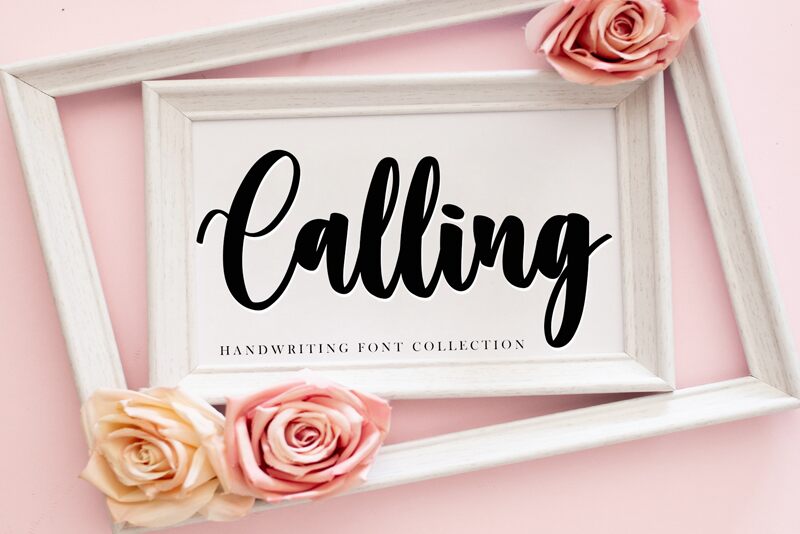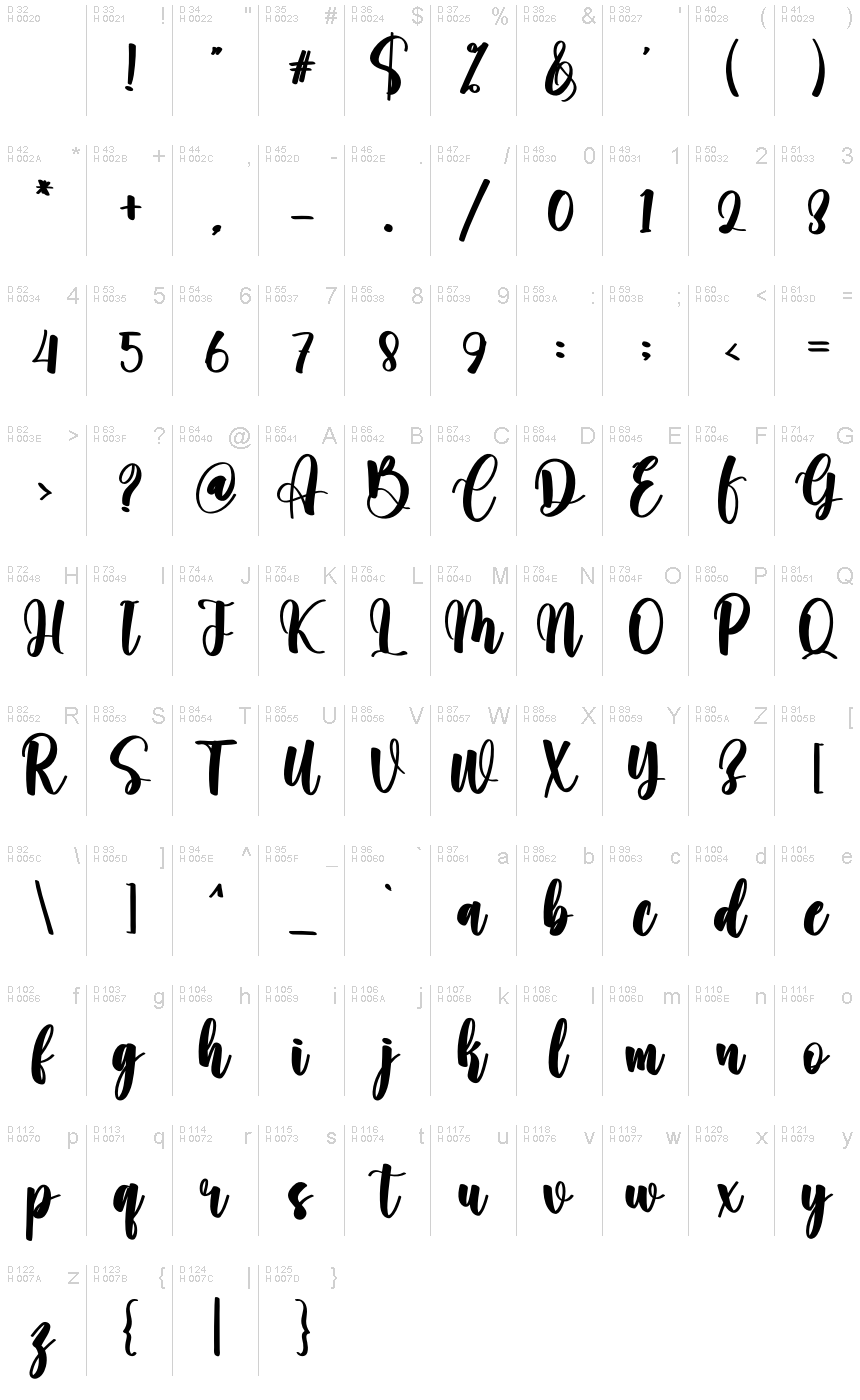
Calling
Calling is a handwritten font crafted by Plafont Store that exudes a personal touch with its fluid, organic strokes. Each character is imbued with an intimate flair, reflecting the natural variations and imperfections of human handwriting. The font's aesthetic appeal lies in its casual elegance and warm, inviting forms, making it ideal for designs that require a bespoke, artisanal feel.
Perfect for invitations, branding, and advertising campaigns, Calling adds a touch of sophistication to any project that seeks to convey authenticity and charm. Its flowing letters are well-suited for creative industries looking to stand out with a font that feels as if it's penned by hand directly onto their canvas.